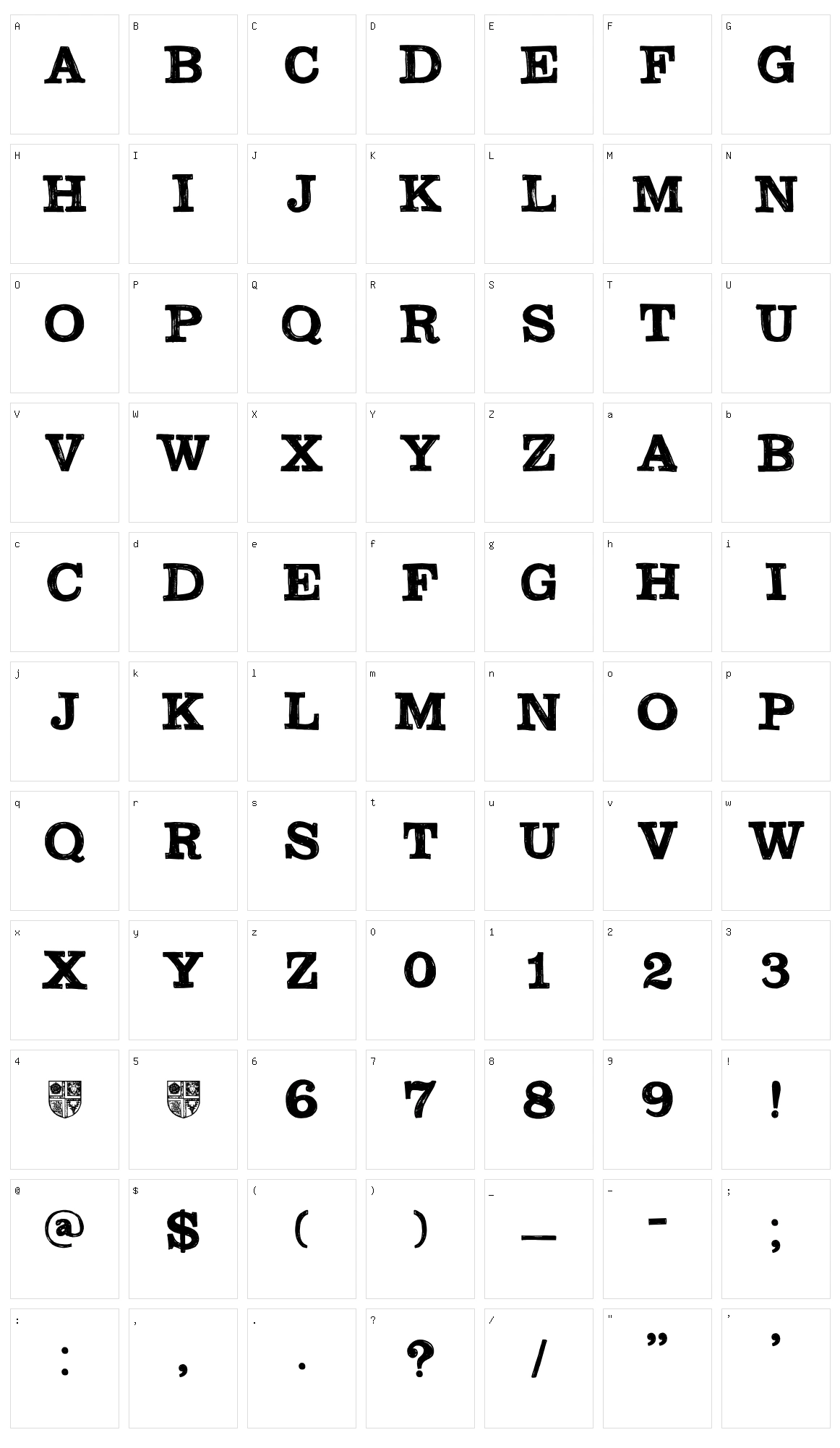
The free font DK Southwark is carefully designed by Hanoded, showcasing a thoughtful balance of creativity and usability and falls under the Eroded font style. When you download the ZIP file, it contains only 1875.7 KB of font files, making it lightweight and quick to download. Please review the license details below to understand permitted usage and distribution rights. If license information is not available, we recommend using this font for personal projects only or contacting the author directly for commercial usage permissions.